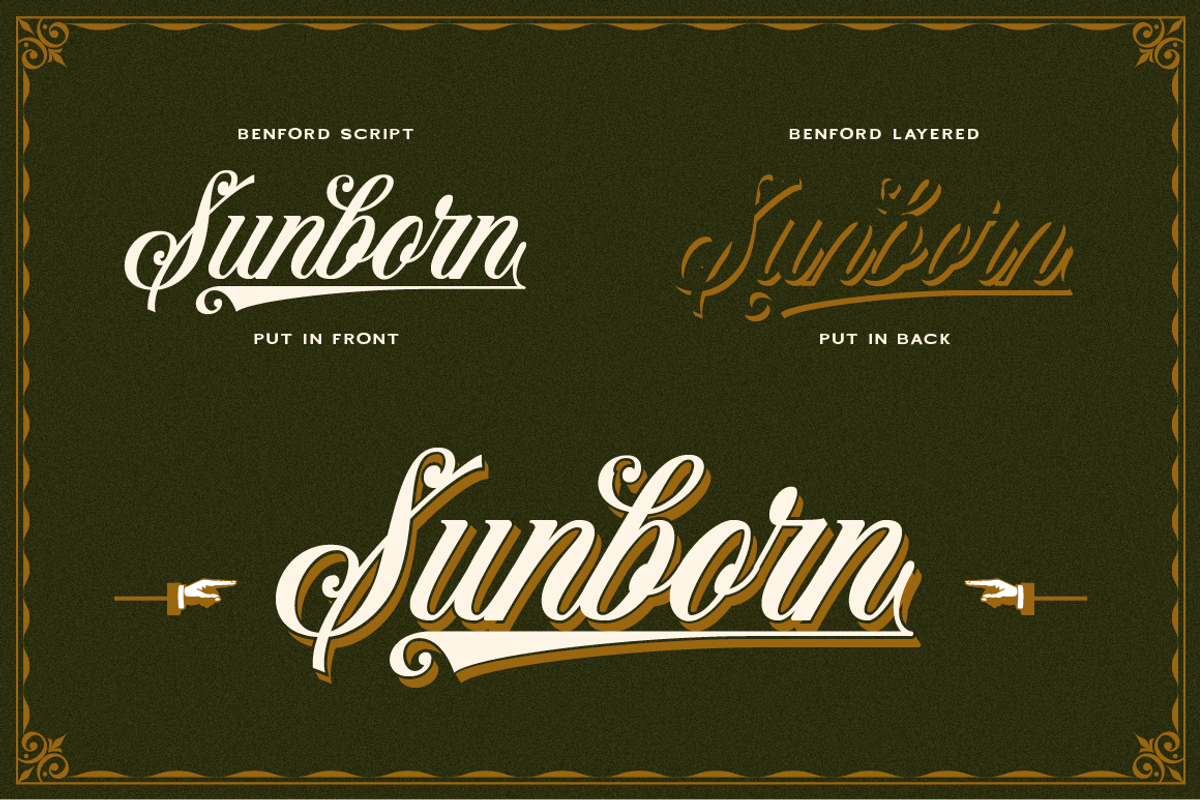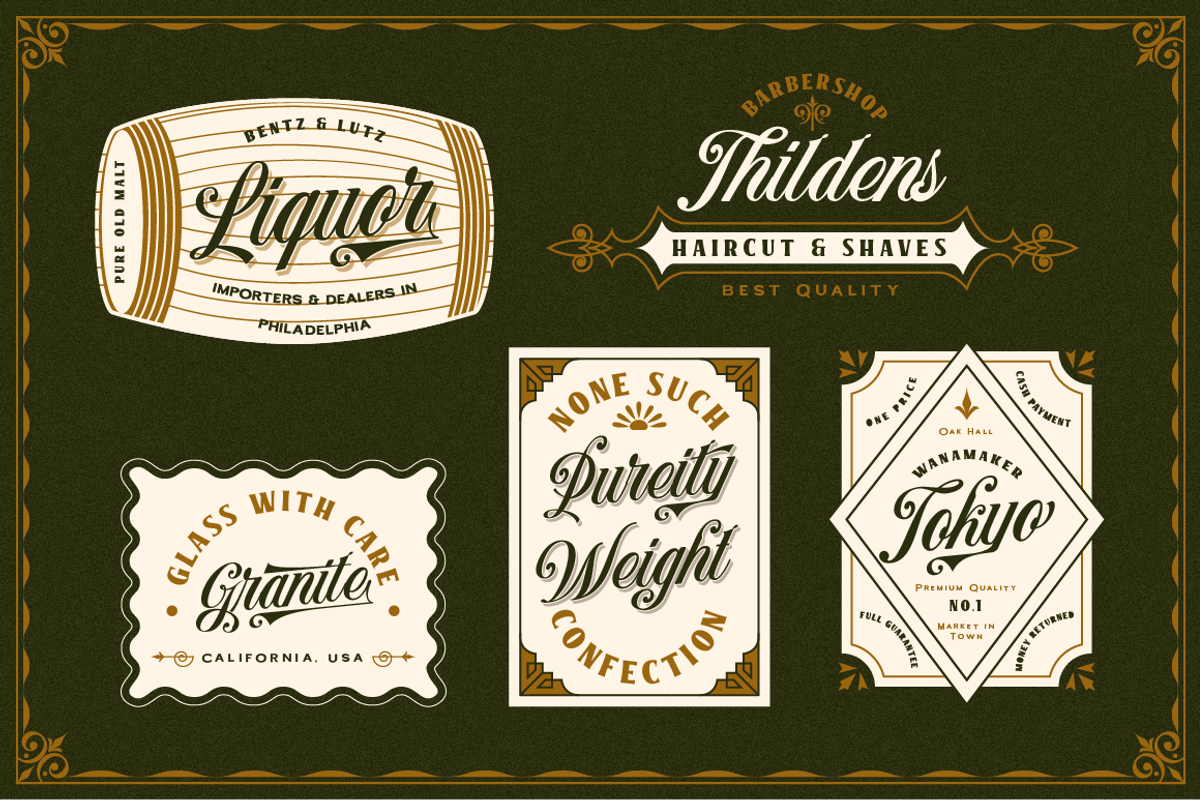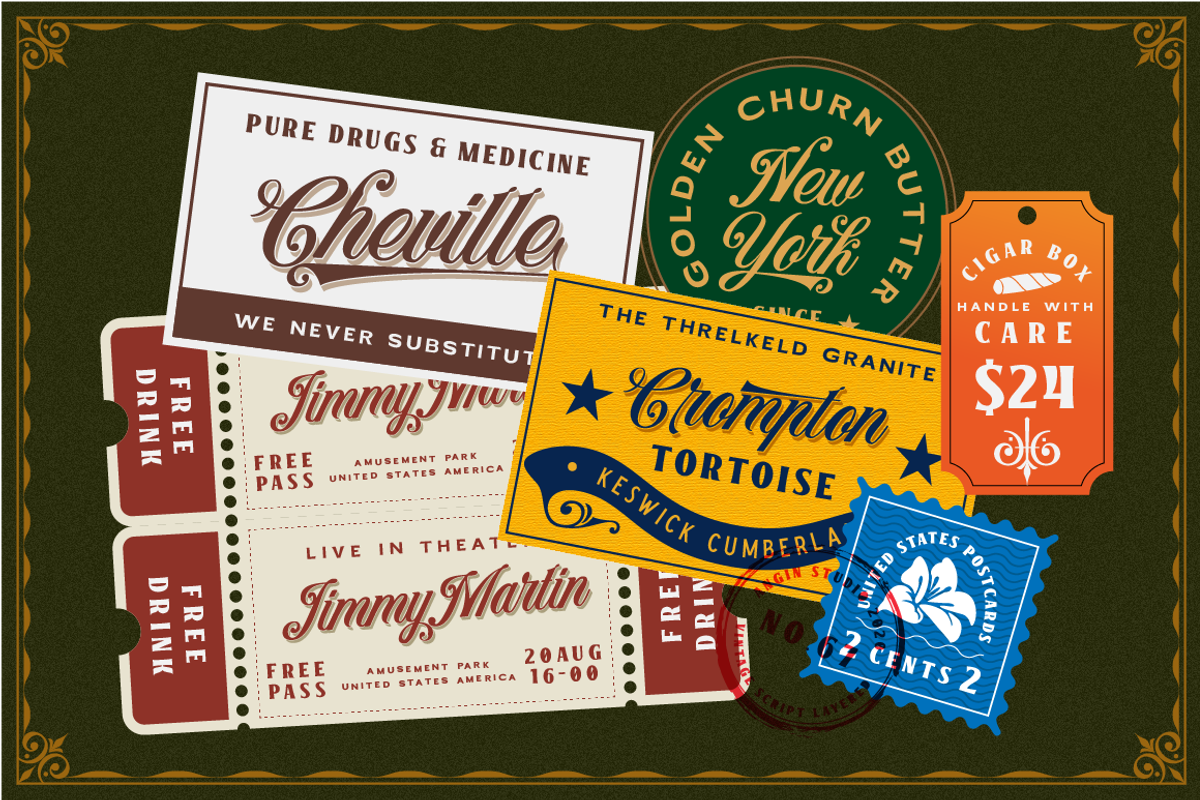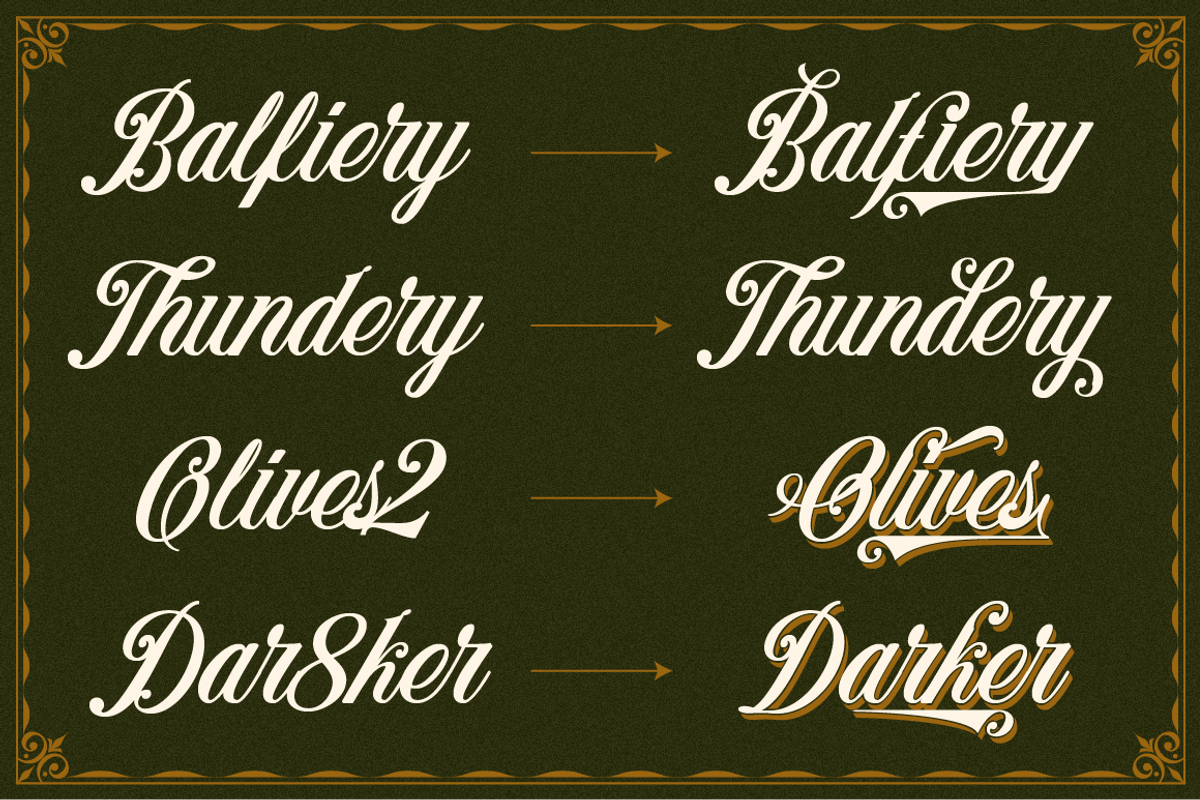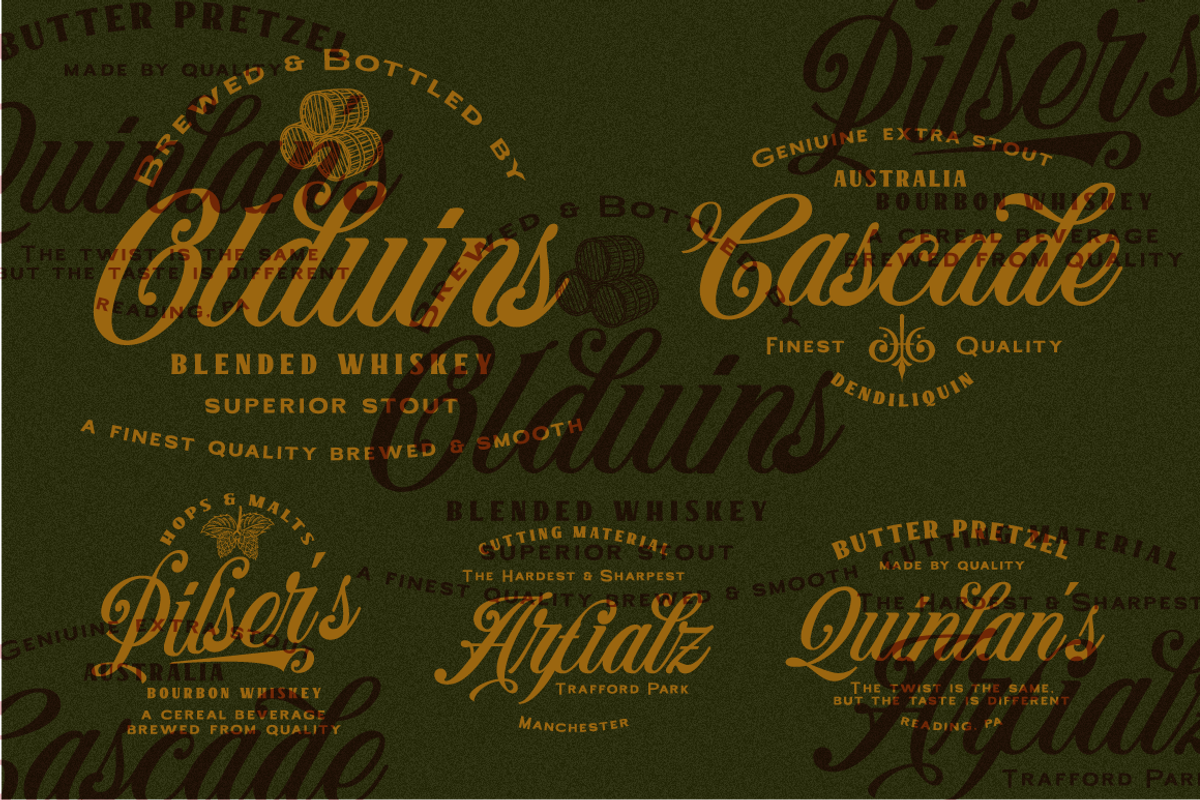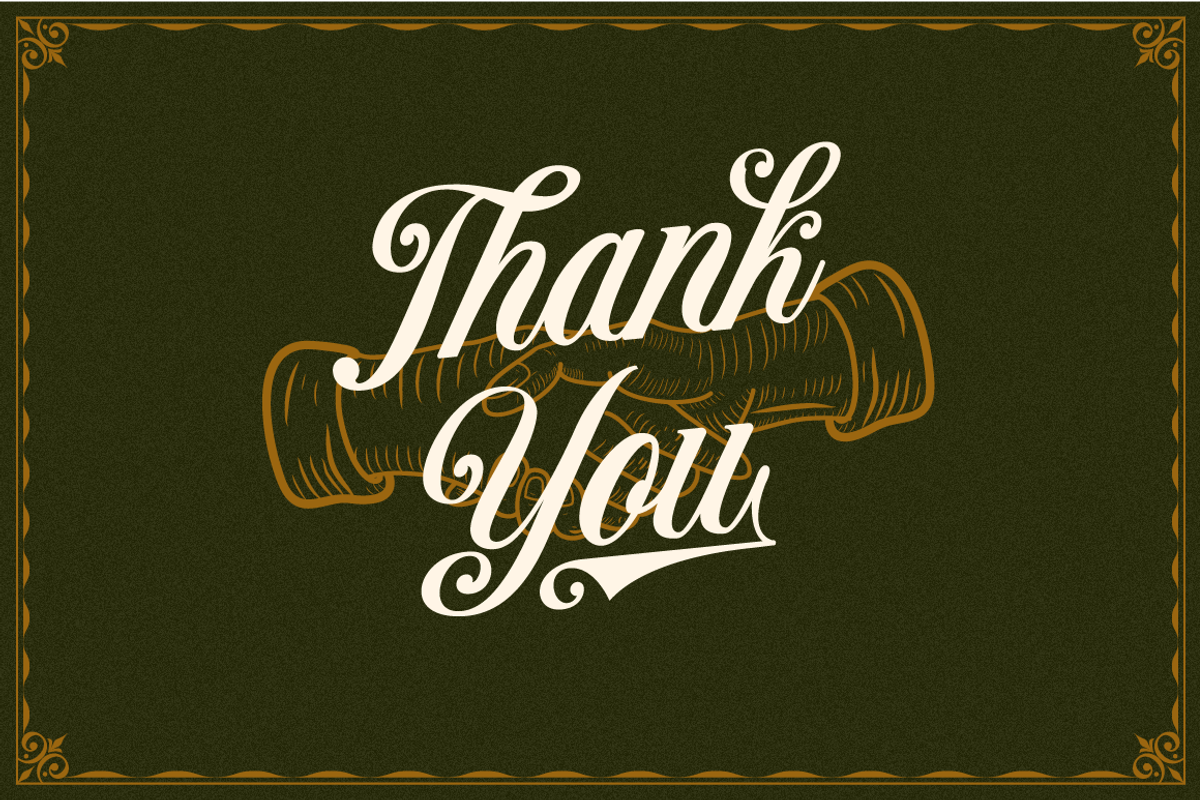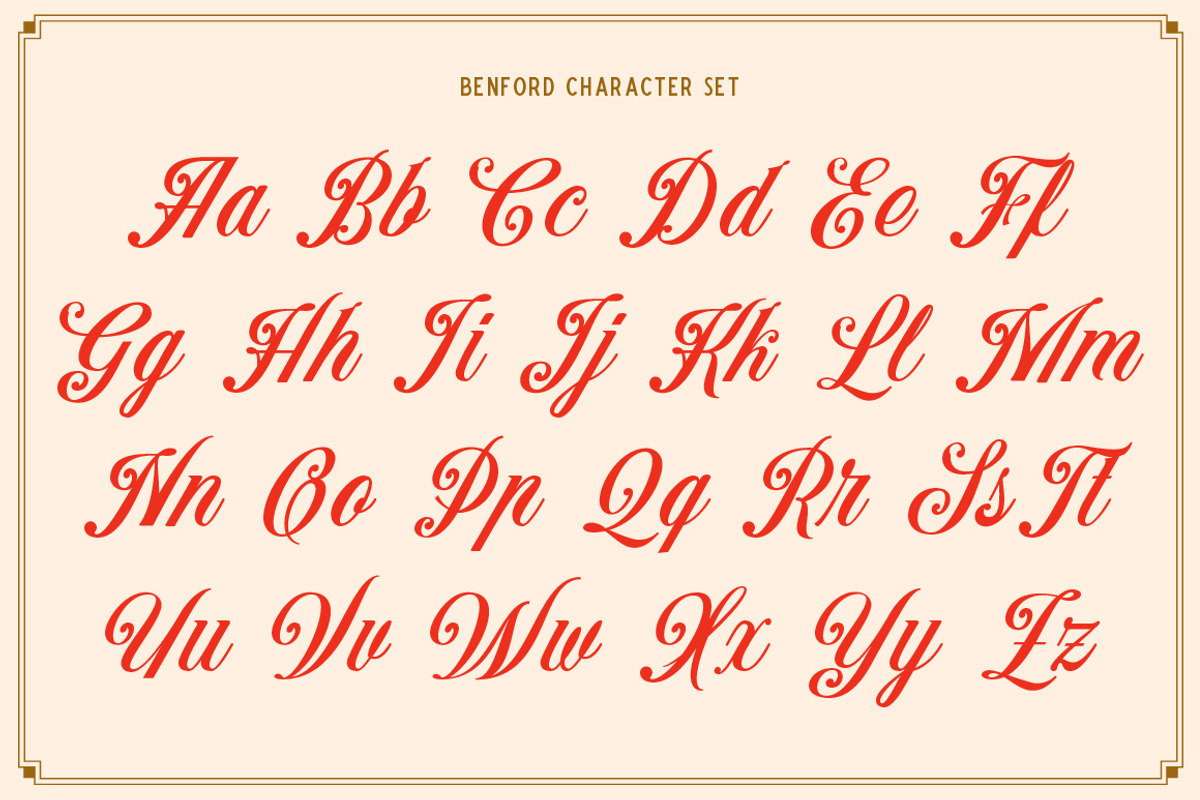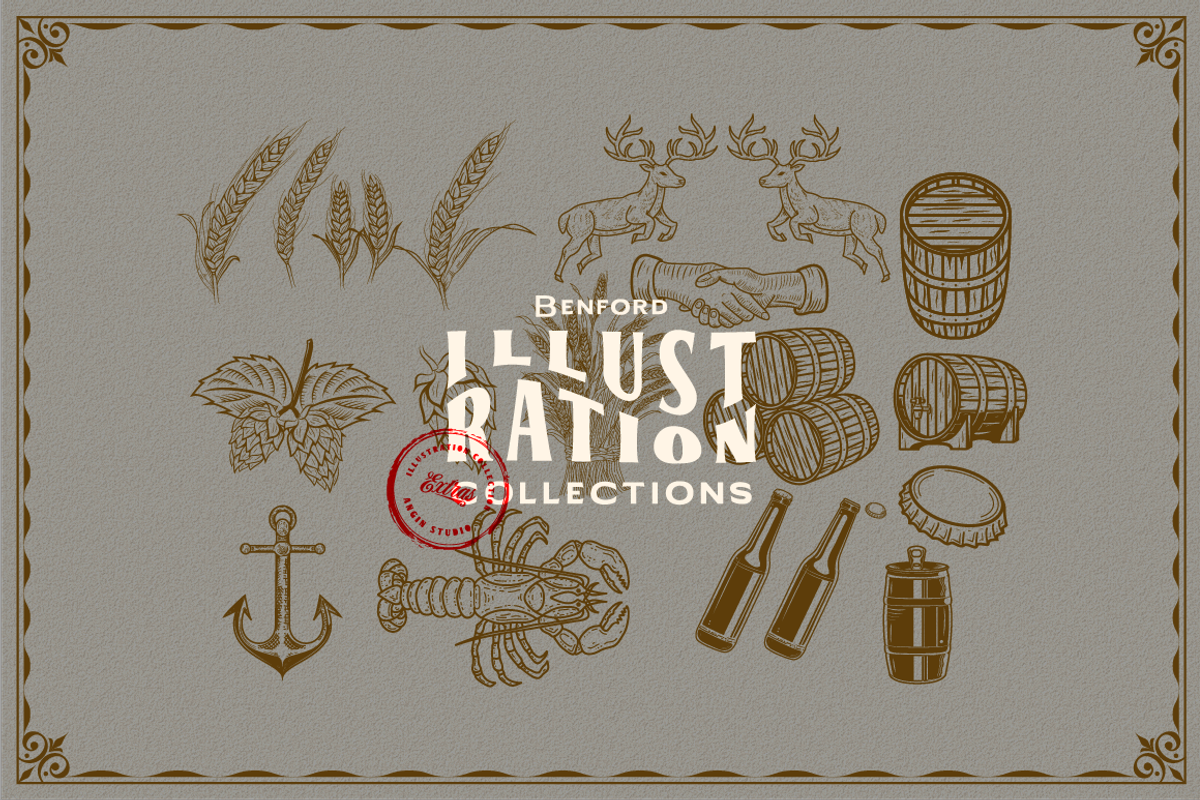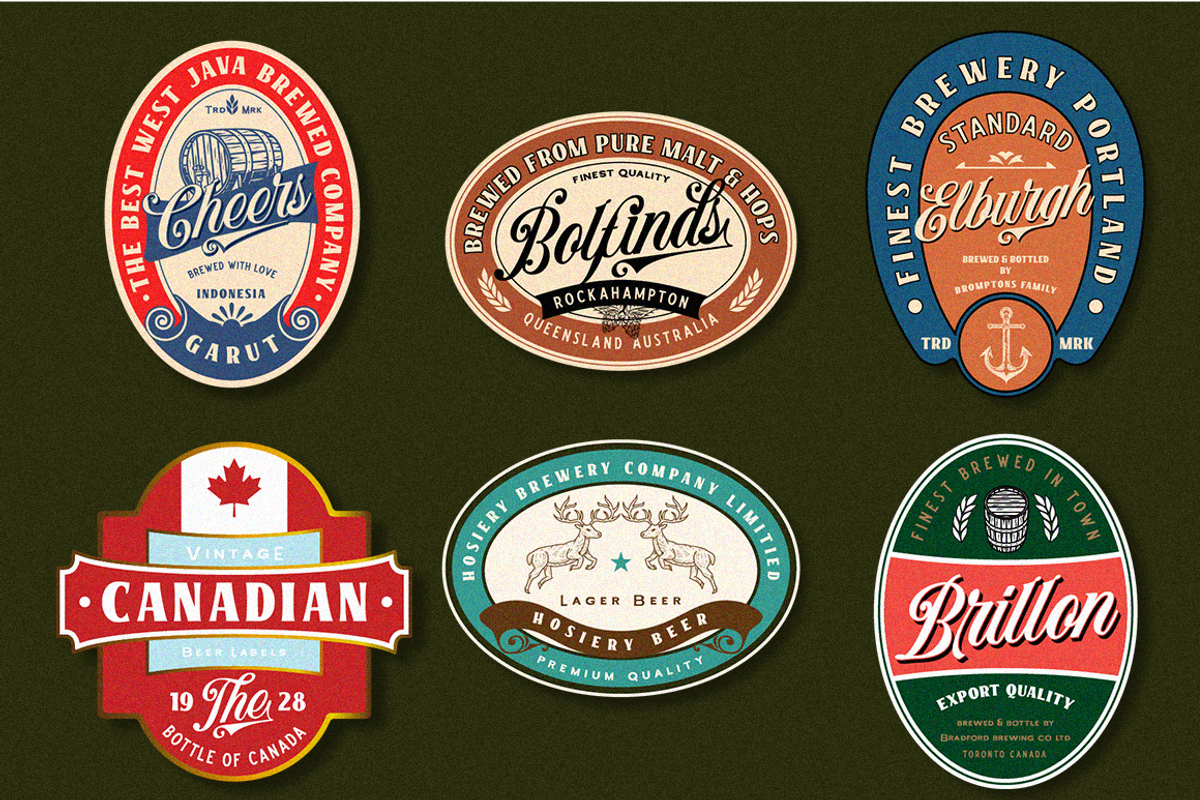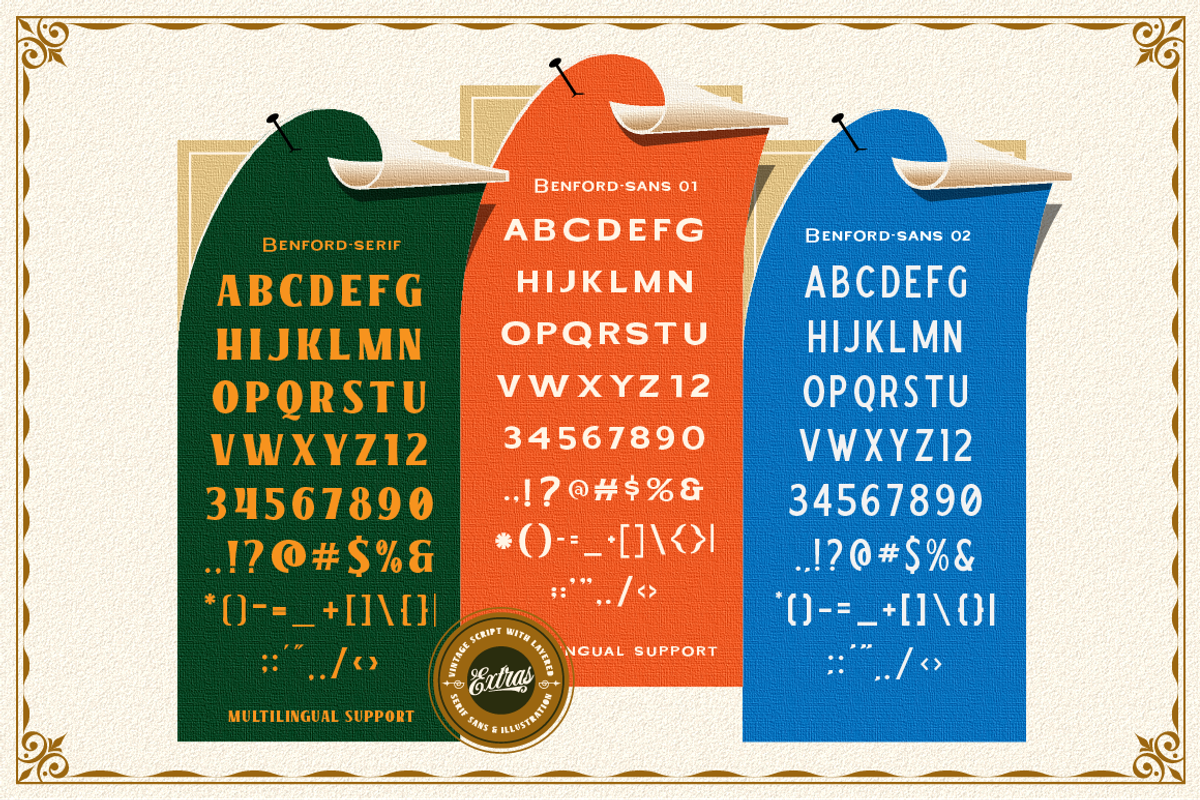
Benford Font Collections + Extras
Now, with our deepest heart let us introduce our new font Benford.
Benford is a vintage font pack contained vintage script with layered style and many features, perfectly paired sans serif, serif and also vintage illustrations as a sweet topping.
This font pack inspired from old fashion script, Vintage beer labels, Ephemera and Old packaging. Created carefully and also easy to use, have a deep look into our display presentation and feel the beauty touch your heart.
Featured
- Alternates Character
- Contextual Alternate
- Discretionary Ligature
- Multilingual Language
- Ornaments